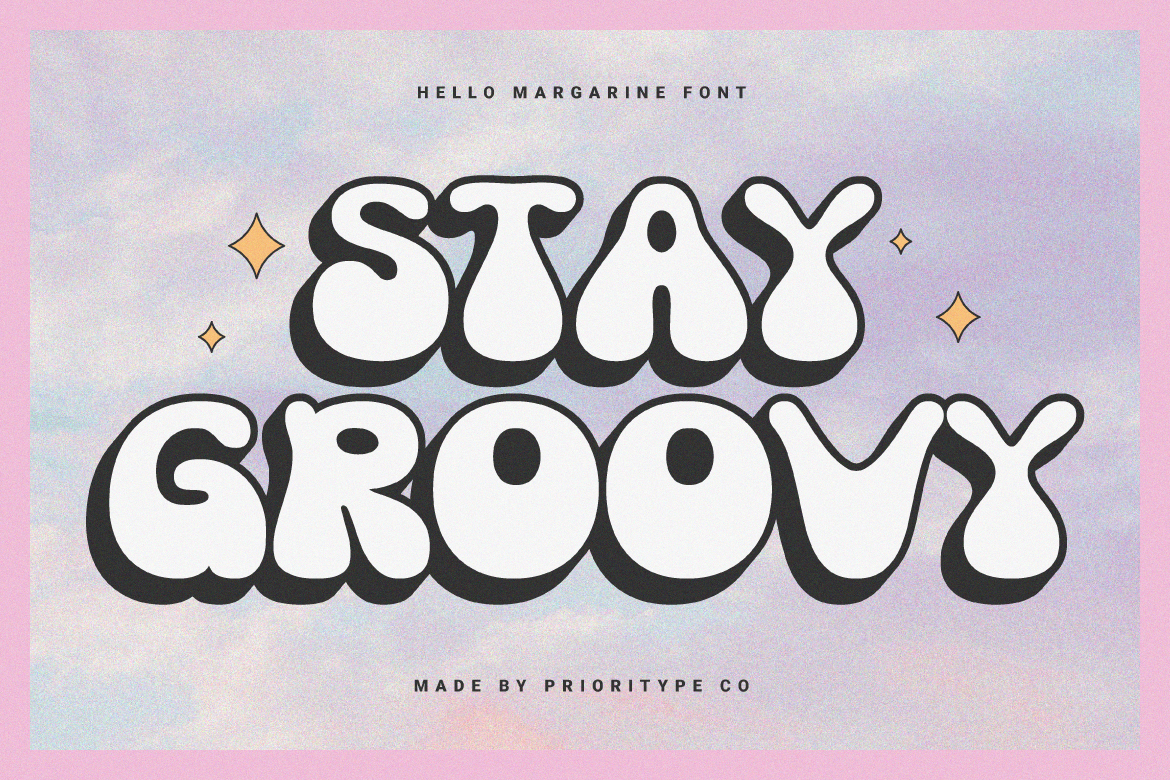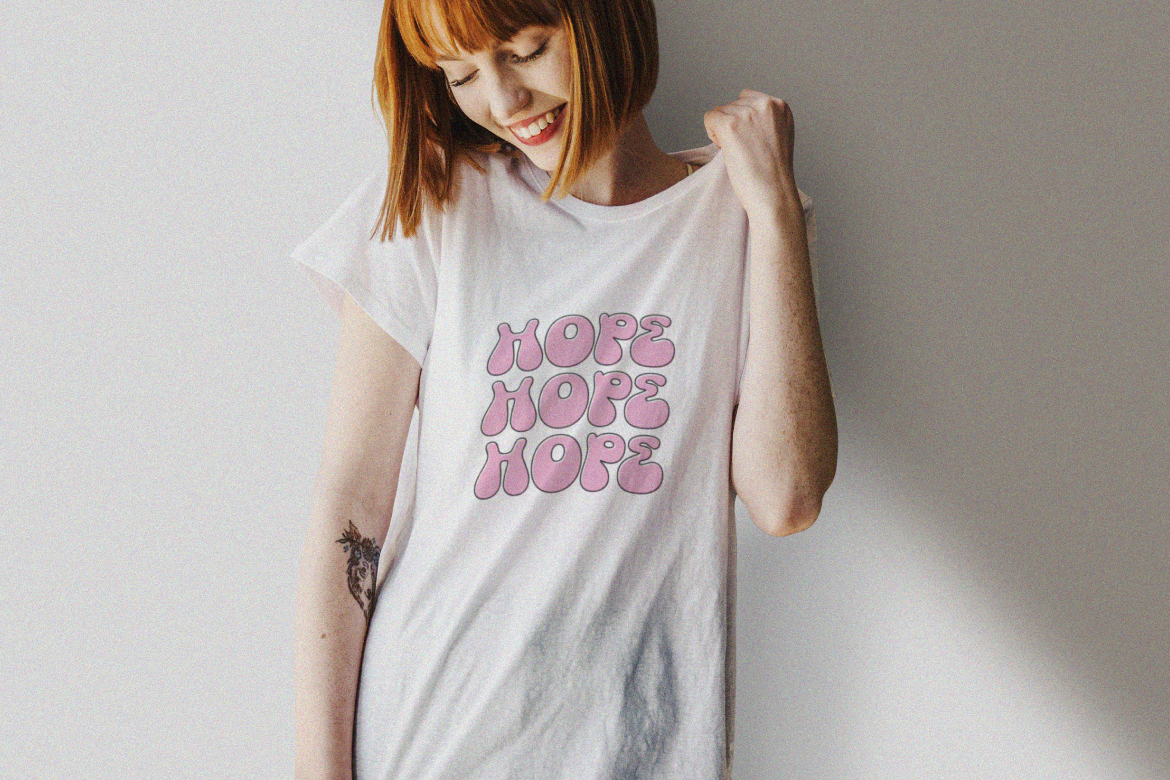
Hello Margarine – Groovy Display Font
Groovy fonts are here again. Yes, “Hello Margarine” is a hand drawn typeface with a bold, funny and fun feel. Comes in 3 styles, namely Regular, Outline and Extrude. When combined, it will be a great visual and practical in use.
- Features: Uppercase, Lowercase, Numeral, Punctuation & Multilingual.
- Multilingual contained: Afrikaans, Albanian, Asu, Basque, Bemba, Bena, Breton, Catalan, Chiga, Cornish, Danish, Dutch, English, Estonian, Filipino, Finnish, French, Friulian, Galician, German, Gusii, Indonesian, Irish, Italian, Kabuverdianu, Kalenjin, Kinyarwanda, Luo, Luxembourgish, Luyia, Machame, Makhuwa-Meetto, Makonde, Malagasy, Manx, Morisyen, North Ndebele, Norwegian Bokmål, Norwegian Nynorsk, Nyankole, Oromo, Portuguese, Quechua, Romansh, Rombo, Rundi, Rwa, Samburu, Sango, Sangu, Scottish Gaelic, Sena, Shambala, Shona, Soga, Somali, Spanish, Swahili, Swedish, Swiss German, Taita, Teso, Uzbek (Latin), Volapük, Vunjo, Zulu.